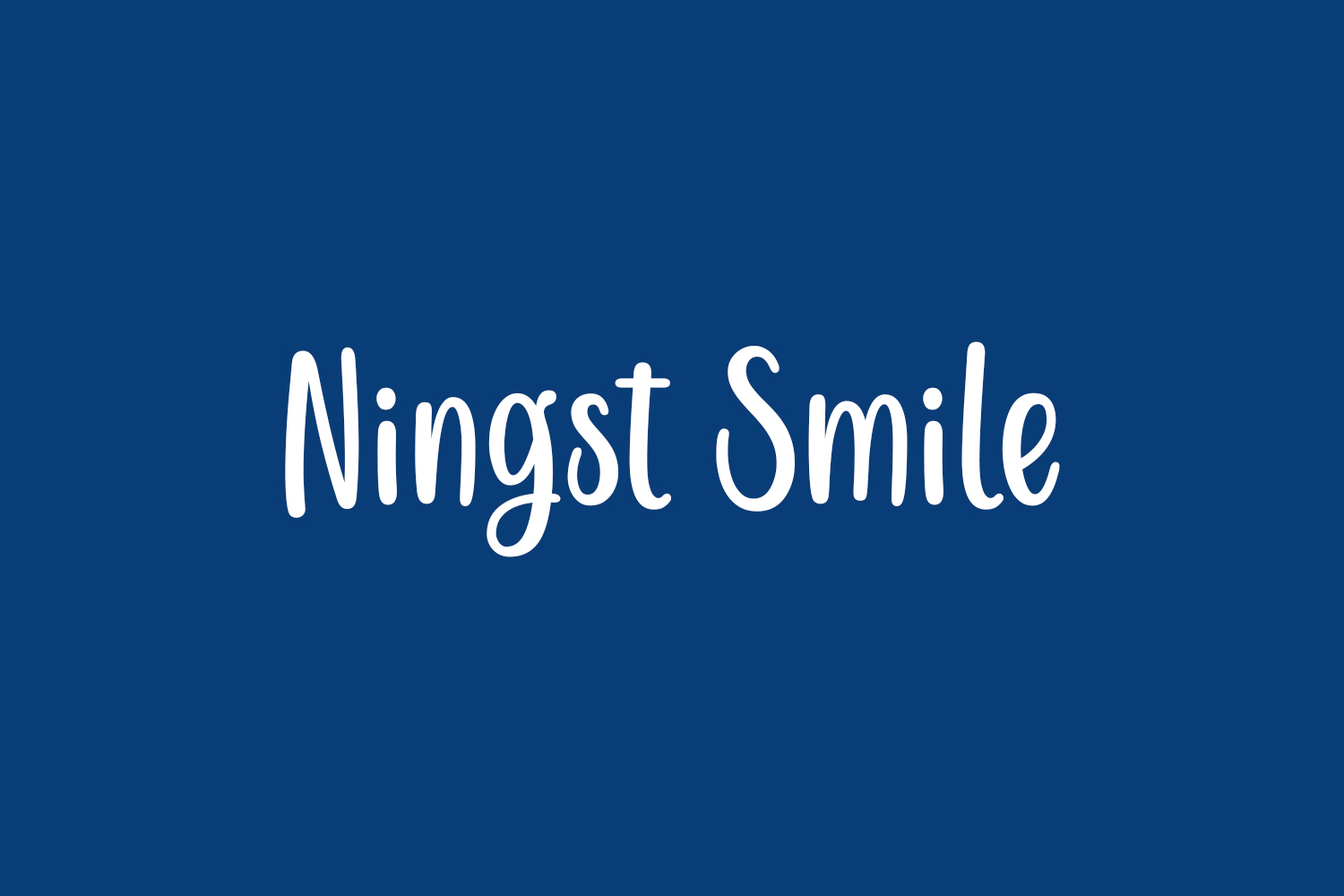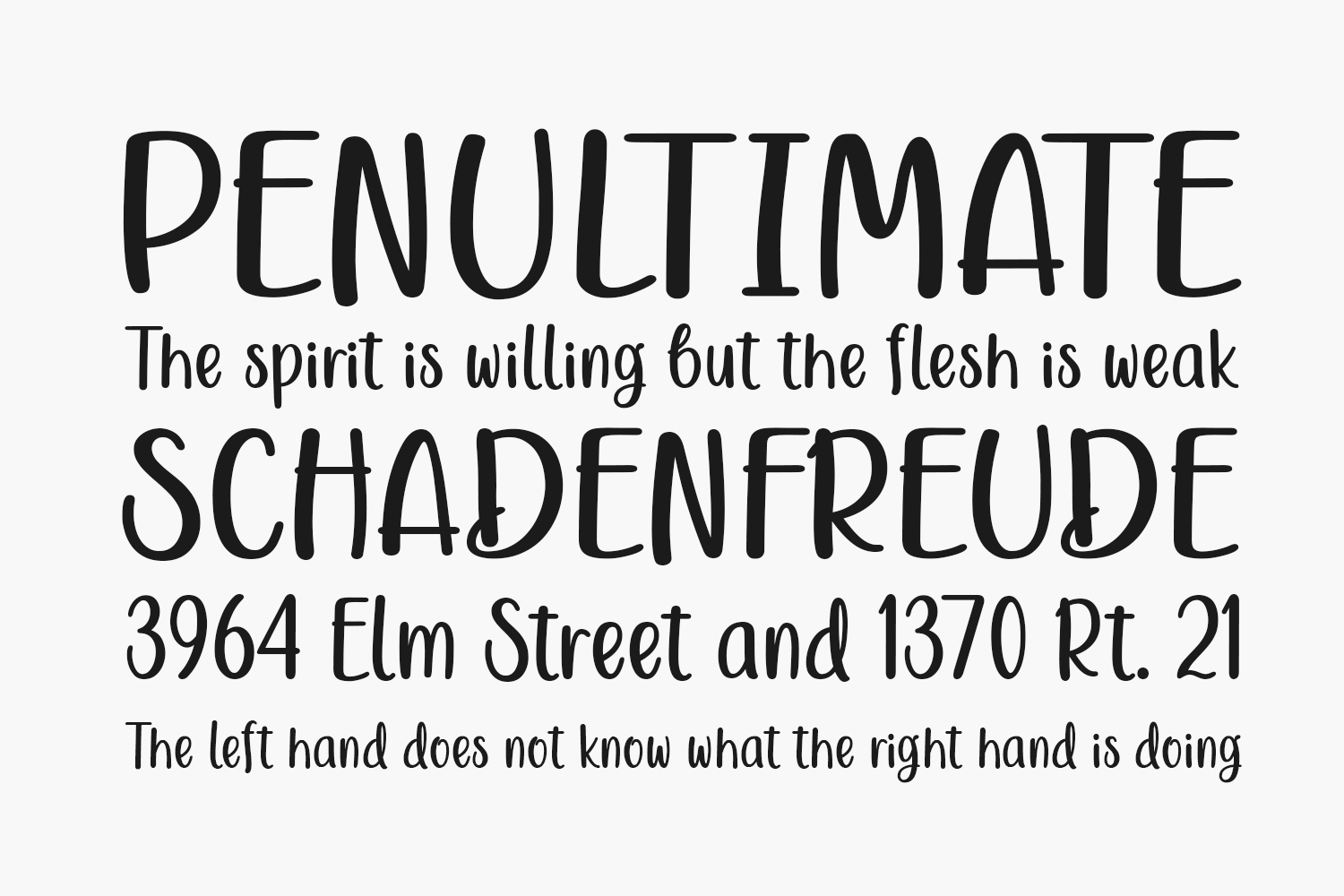
Bring a touch of charm to your designs with Ningst Smile Free Font, a delightful handwritten font brimming with whimsy and character. Its lively and sweet style makes it the ideal choice for adding a touch of warmth and positivity to your projects.